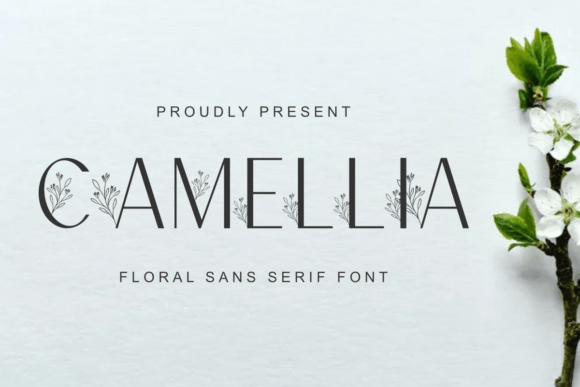
The Beauty of Camellia Font: A Unique Floral Sans Serif for Creative Minds
I’ll never forget the moment I stumbled upon the Camellia font. I was working on a craft project, pouring over design blogs and font libraries, searching for the perfect combination of elegance and whimsy. My client wanted a logo that would capture the essence of their handmade brand, and I was determined to deliver. That’s when I discovered Camellia – a stunning floral sans serif font that instantly stole my heart.
What makes Camellia so special is its unique blend of sans serif simplicity and delicate floral illustrations. Each letter is beautifully crafted, with intricate details that add a touch of sophistication to any design. As someone who’s passionate about crafts and handmade goods, I knew I had to share this font with like-minded creatives.
An Honest Review of Camellia Font
What I Love About Camellia ✨
• ✅ Unique and eye-catching design that sets it apart from other fonts
• ✅ Beautiful floral illustrations that add a touch of elegance to any design
• ✅ Highly versatile and suitable for a wide range of creative projects
• ✅ Easy to read and understand, even in smaller sizes
• ⚠️ Some of the floral illustrations can be quite intricate, which may not work well in very small sizes
• ⚠️ Limited availability of certain characters or glyphs, which may require some creative problem-solving
The Story Behind Camellia Font
Camellia font was designed with the crafty and creative in mind. The designer, inspired by the beauty of flowers and the world of handmade crafts, set out to create a font that would capture the essence of this unique and special world. With its delicate floral illustrations and elegant sans serif design, Camellia font is the perfect tool for anyone looking to add a touch of whimsy and sophistication to their designs.
Q: What is Camellia font, and what makes it unique?
A: Camellia font is a floral sans serif font that combines the simplicity of sans serif design with the elegance of floral illustrations. Its unique design makes it perfect for crafty and creative projects.
Q: Is Camellia font easy to read, even in smaller sizes?
A: Yes, Camellia font is designed to be easy to read, even in smaller sizes. However, some of the more intricate floral illustrations may not work well in very small sizes.